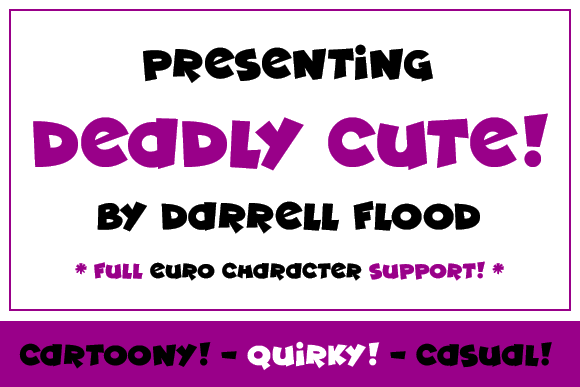
Introducing Deadly Cute Font: The Ultimate Choice for Fun-Filled Designs
Are you a designer or crafter looking for a font that can add a dash of fun and quirkiness to your projects? Look no further than Deadly Cute Font! This super cute, cartoony font is perfect for comic strips, animations, and any theme that requires a playful touch.
What Makes Deadly Cute Font So Special?
Deadly Cute Font is a one-of-a-kind typeface that is bursting with energy and personality. Its unique design features bold lines, playful curves, and a dash of whimsy, making it perfect for designs that require a fun and youthful vibe.
Whether you’re creating a comic strip, animating a video, or designing a craft project, Deadly Cute Font is the perfect choice. Its versatility and charm make it suitable for a wide range of applications, from children’s books to social media graphics.
Key Features of Deadly Cute Font
- Super Cute and Cartoony: Deadly Cute Font has a distinctively cute and cartoony feel that is sure to capture the attention of your audience.
- Full of Energy and Quirkiness: This font is designed to add a dash of fun and quirkiness to your designs, making it perfect for playful themes.
- Perfect for Comic Strips and Animations: Deadly Cute Font is ideal for comic strips, animations, and any other design that requires a dynamic and engaging font.
- Easy to Read: Despite its playful design, Deadly Cute Font is easy to read, making it suitable for body text and headings.
How to Use Deadly Cute Font in Your Designs
Using Deadly Cute Font in your designs is easy! Here are a few tips to get you started:
- Pair it with Other Fonts: Deadly Cute Font pairs well with other fonts, especially sans-serif fonts. Try pairing it with a clean sans-serif font for a bold and playful look.
- Use it for Headings and Titles: Deadly Cute Font is perfect for headings and titles, where its playful design can really shine.
- Add it to Your Comic Strips and Animations: Deadly Cute Font is a natural fit for comic strips and animations. Use it to add a dash of fun and personality to your characters and text.
Why Designers and Crafters Love Deadly Cute Font
Designers and crafters love Deadly Cute Font for its unique design and versatility. Here are a few reasons why:
- Unique Design: Deadly Cute Font has a one-of-a-kind design that sets it apart from other fonts.
- Easy to Use: Deadly Cute Font is easy to use and can be easily integrated into a wide range of designs.
- Perfect for Fun-Filled Themes: Deadly Cute Font is perfect for designs that require a playful and fun vibe.
In conclusion, Deadly Cute Font is a super cute, cartoony font that is perfect for comic strips, animations, and any fun-filled theme. Its unique design, versatility, and charm make it a must-have for designers and crafters looking to add a dash of fun and quirkiness to their projects.